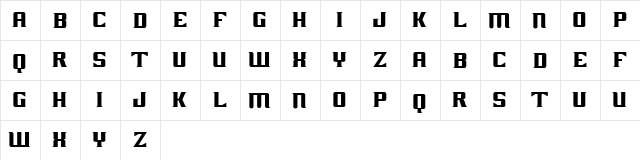
GHOST RIDER MOVIE Regular
| Foundry | P. A. Vannucci |
| Designer | P. A. Vannucci |
Design Context for GHOST RIDER MOVIE Typeface
GHOST RIDER MOVIE offers clean, dependable letterforms without strong stylistic allegiance, making it a practical choice for designers who need flexibility.